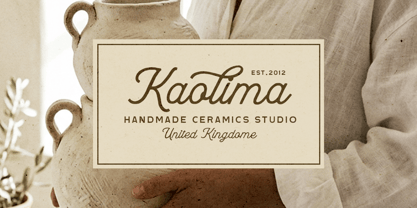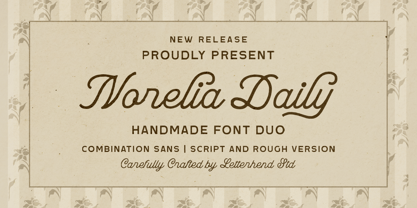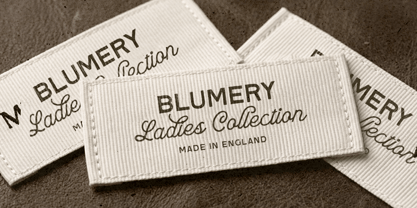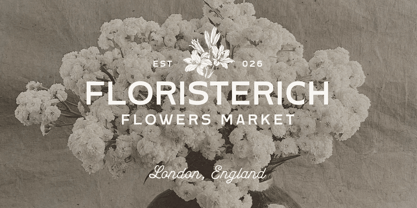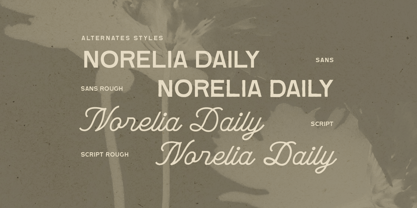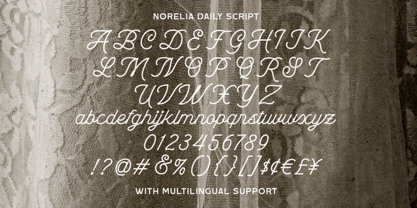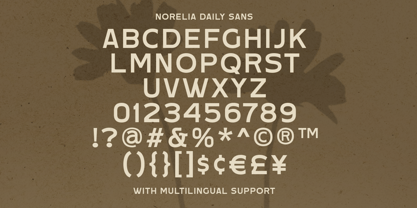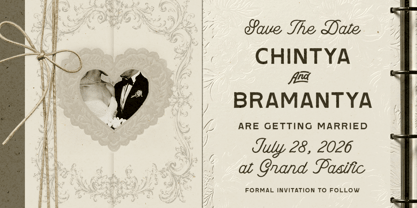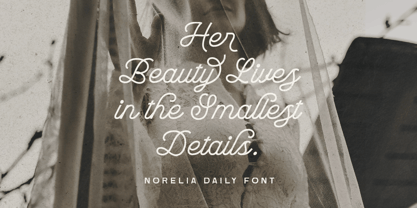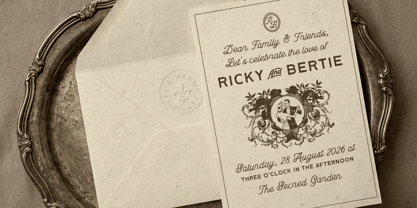
Norelia Daily
by Letterhend
The Norelia Daily Font Family was designed by Hendry Juanda and published by Letterhend. Norelia Daily contains 4 styles and family package options. More about this family
Norelia Daily feels like a warm note written in a favorite journal and tucked between the pages of a well-loved book. Combining a graceful monoline script with a clean companion sans, it brings a relaxed vintage charm that feels both familiar and timeless.
The included rough styles add a natural handcrafted touch, making it perfect for café branding, product packaging, lifestyle logos, social media, stationery, and creative projects that want to feel genuine, cozy, and beautifully effortless.
Features :
• Uppercase & lowercase
• Script & Sans
• Numbers and punctuation
• Alternates Character
• Multilingual Support
Designers: Hendry Juanda
Foundry: Letterhend